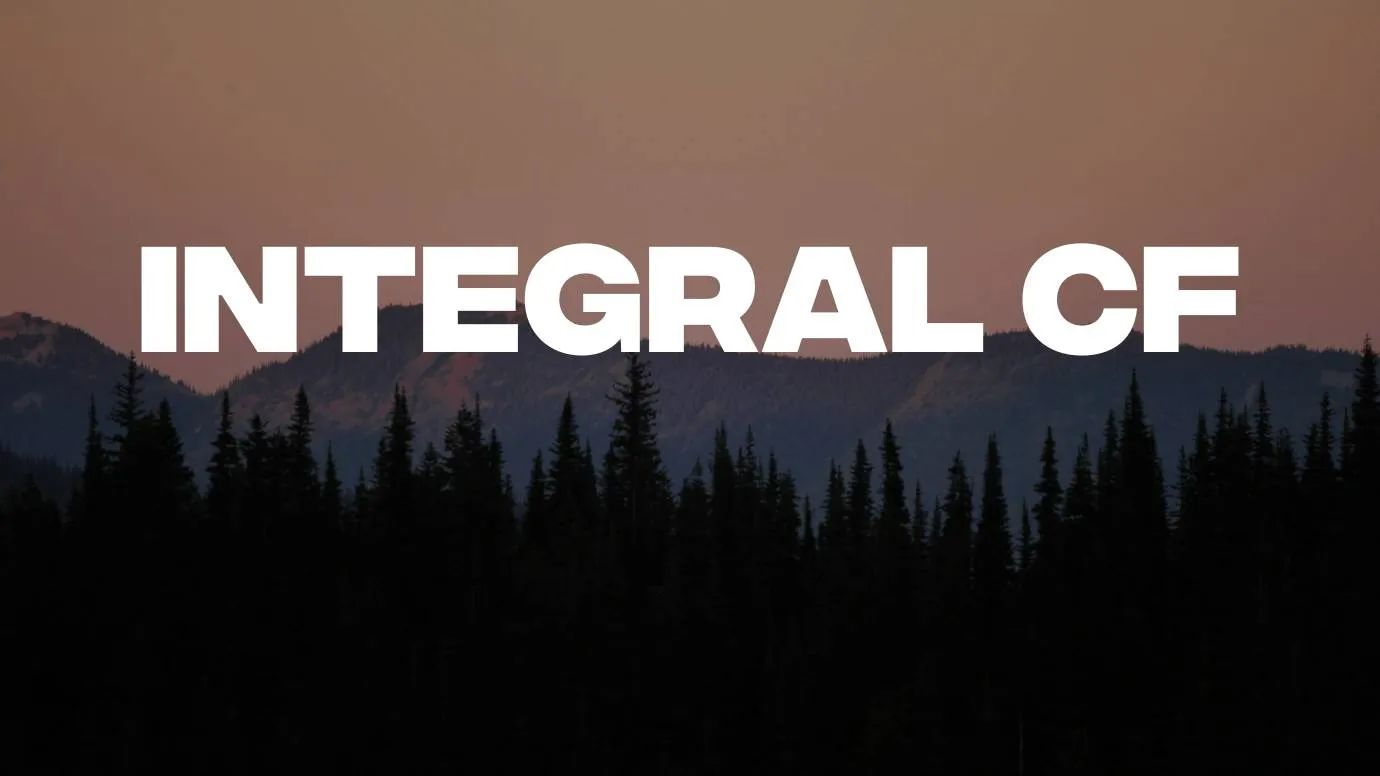
Integral CF Font Family is a unique font that has extra bold characters. It was designed by Connary Fagen. This font has a sans-serif category. It comes in more than 125 characters along with uppercase, punctuation, lowercase, and question marks.
The unique ligatures of this font are so helpful for different types of design purposes. If you want to make it pair with any other alternative typeface then you can pick rubik mono one font for this purpose.